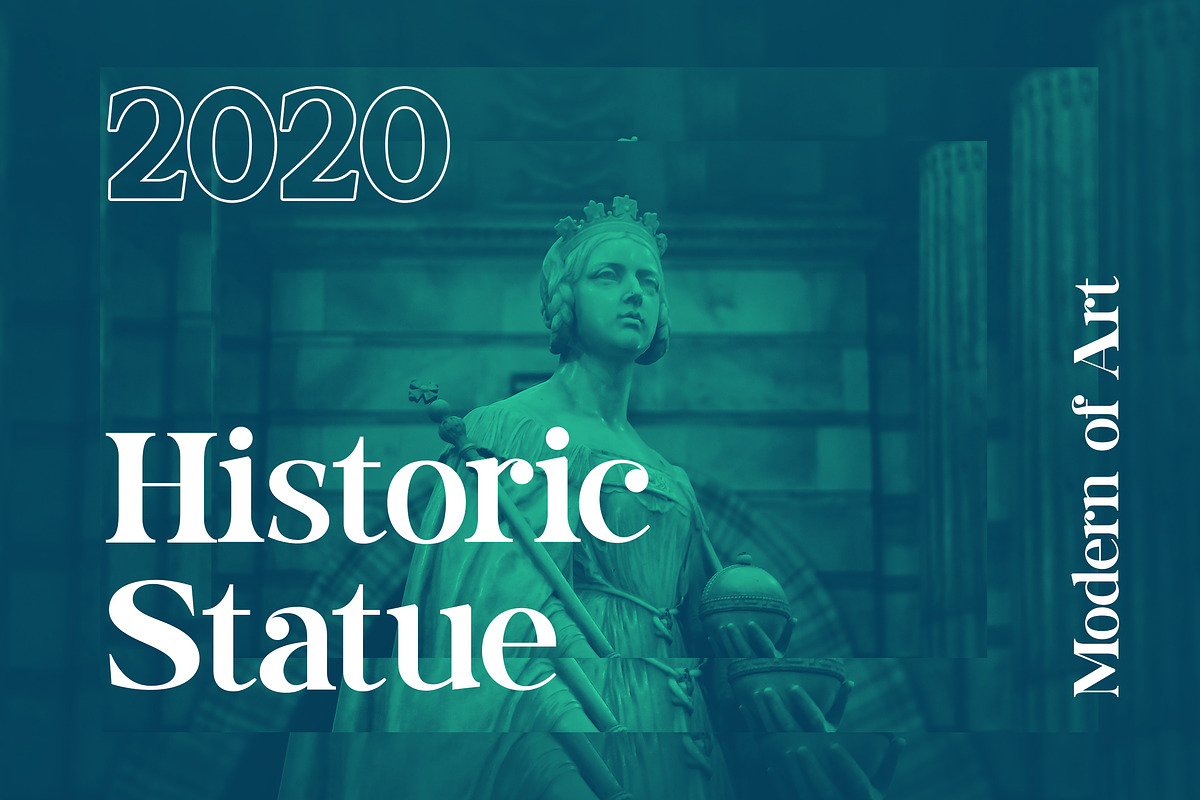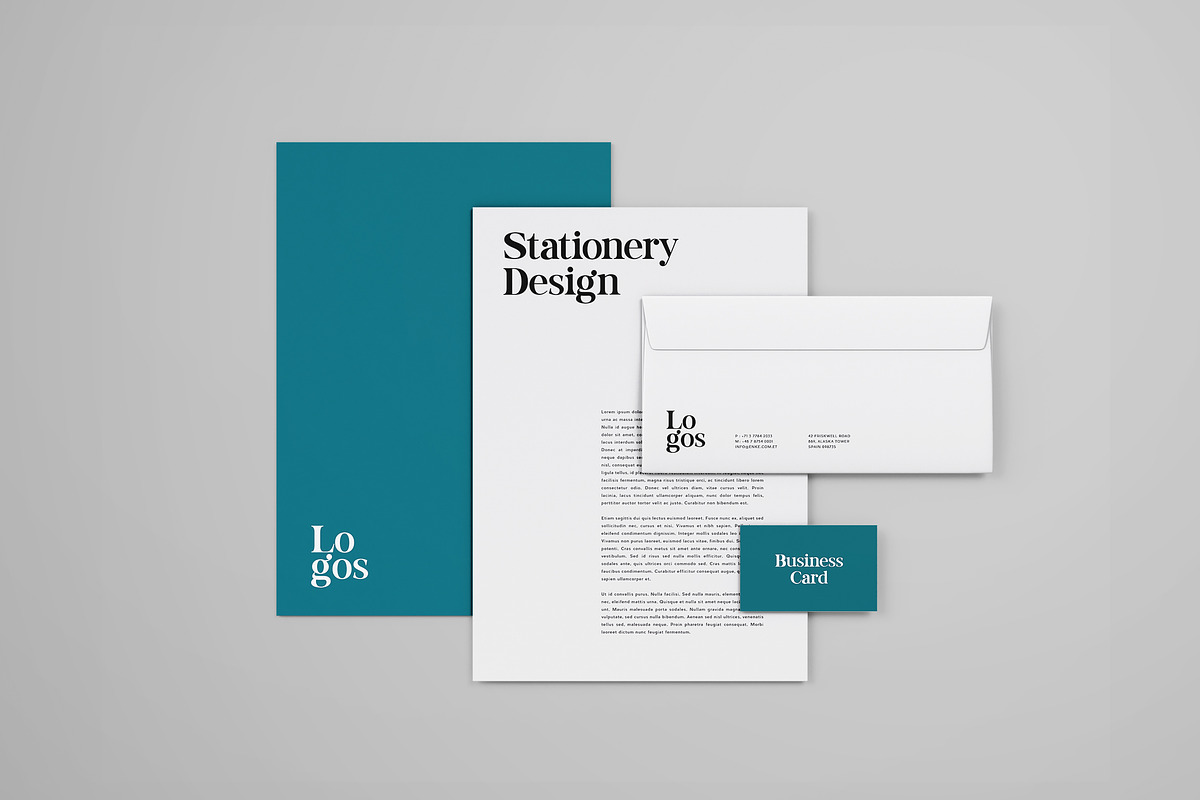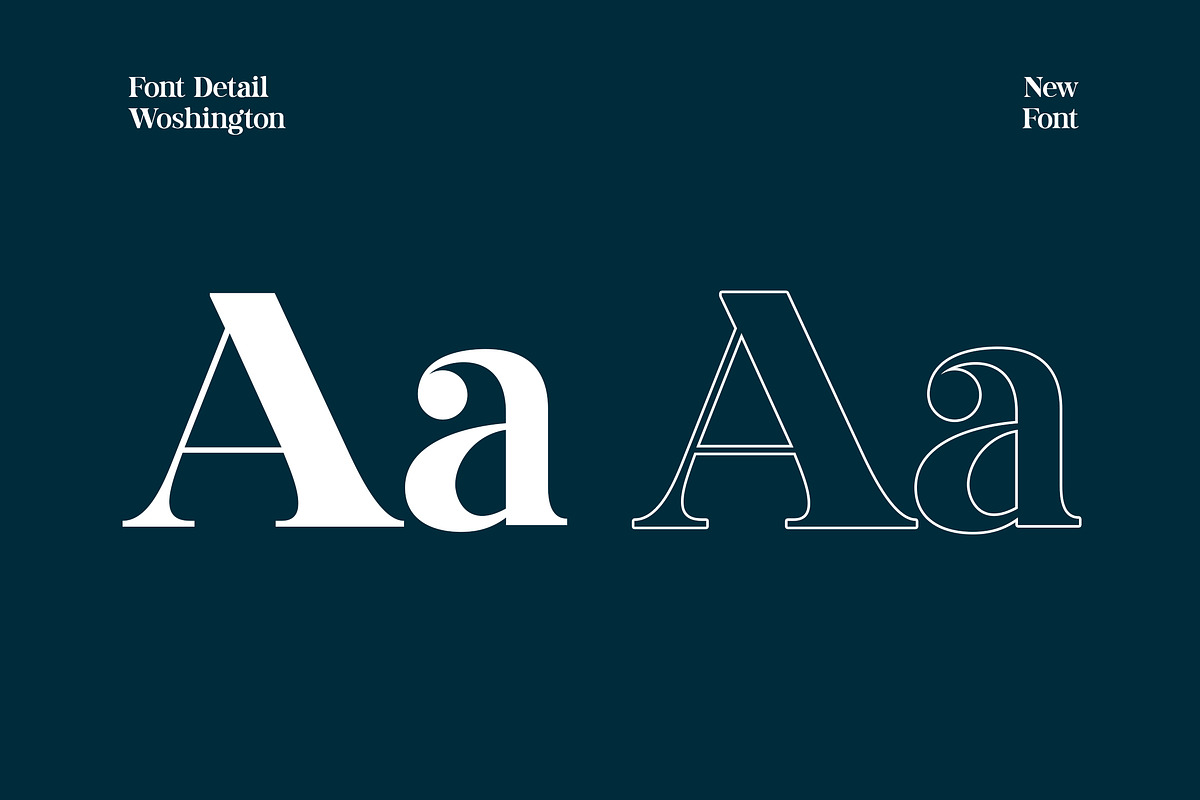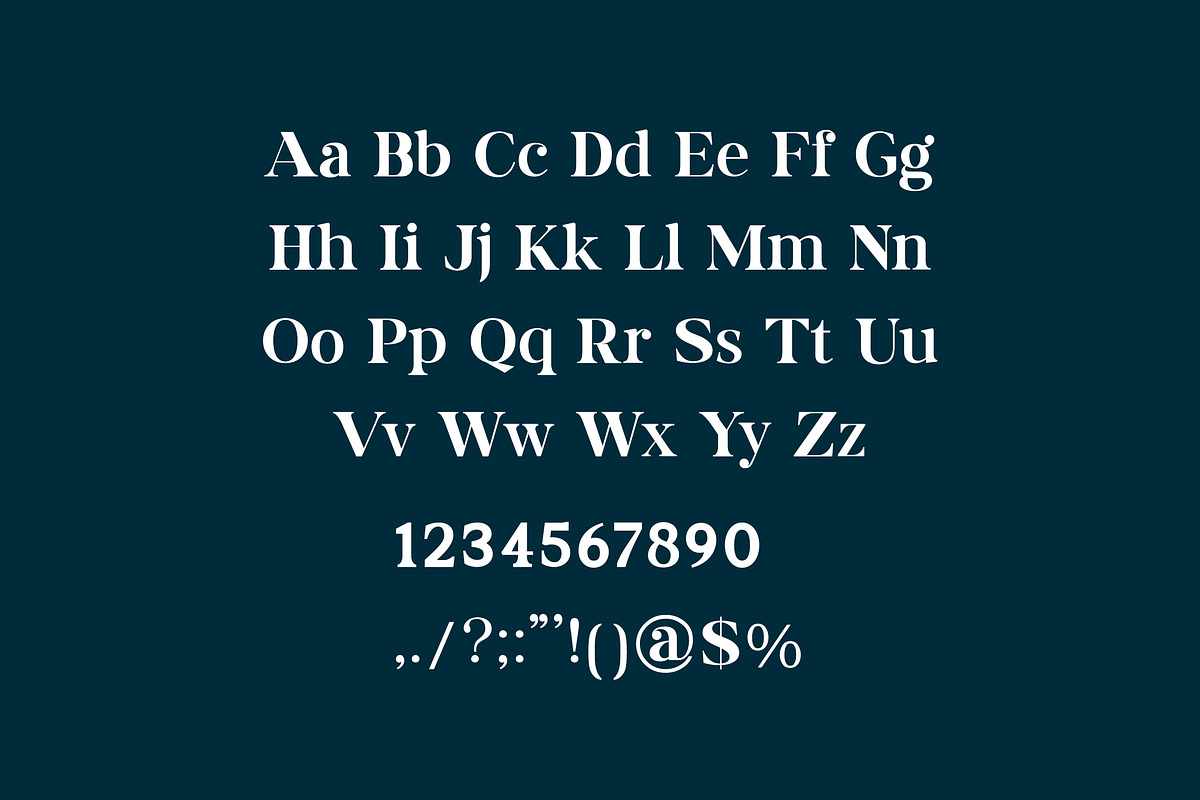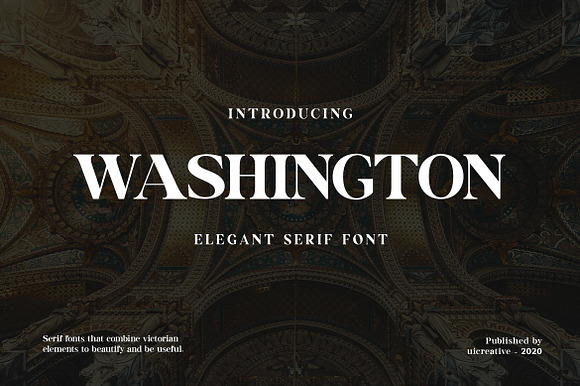
Washington Display Serif Font
Washington is a Serif Font that is suitable both for a pleasant experience in reading texts as well as for striking headlines and for subtext applications with the heavier weights. Very suitable to use logos, posters, covers, main packaging, t-shirts, business cards, wedding cards, and more, so what are you waiting for?
Why Washington Display Serif Font is worth a look
Washington Display Serif Font by UICreative fits naturally into Branding, posters, packaging, typography.